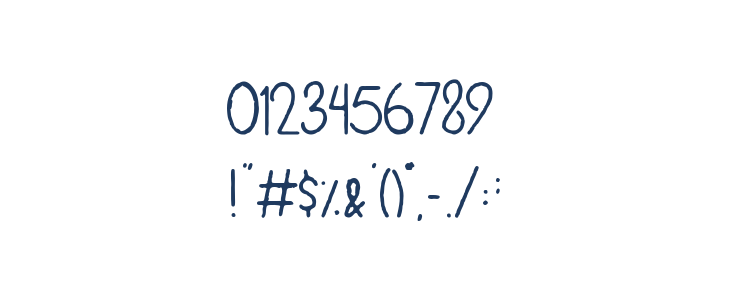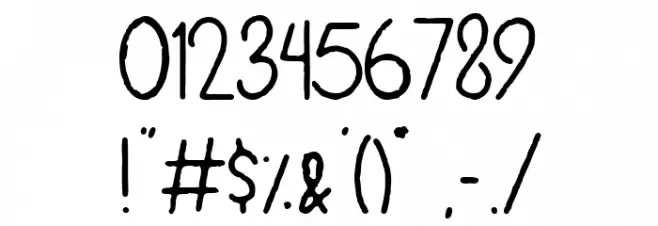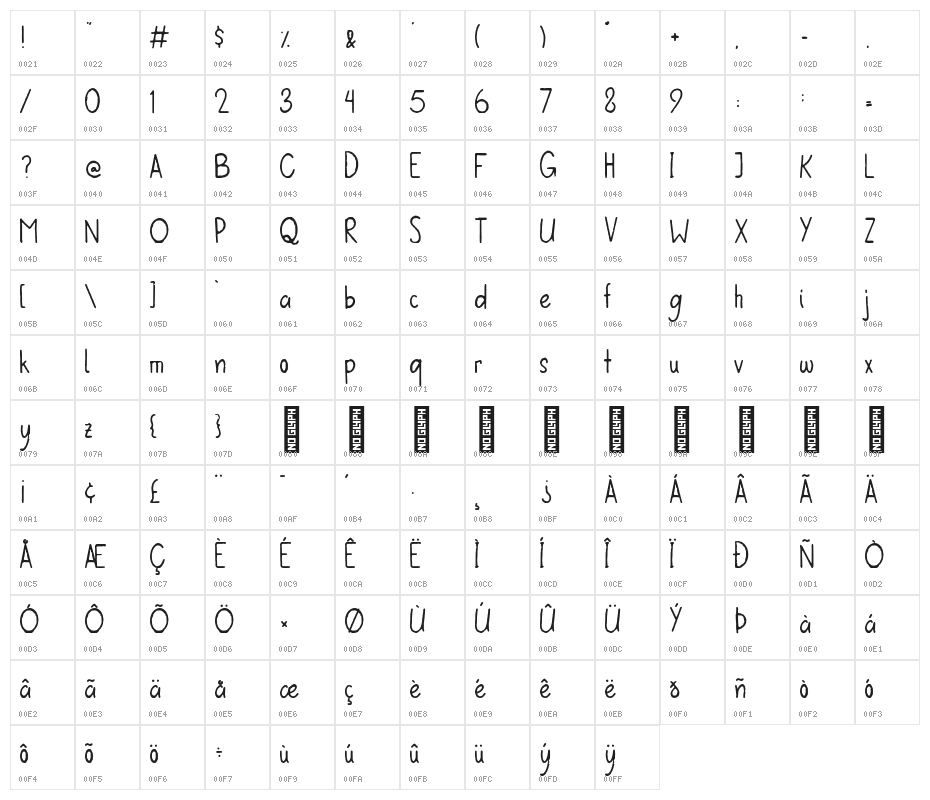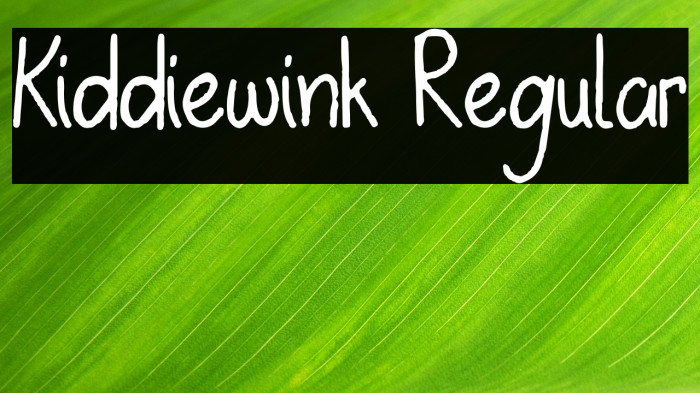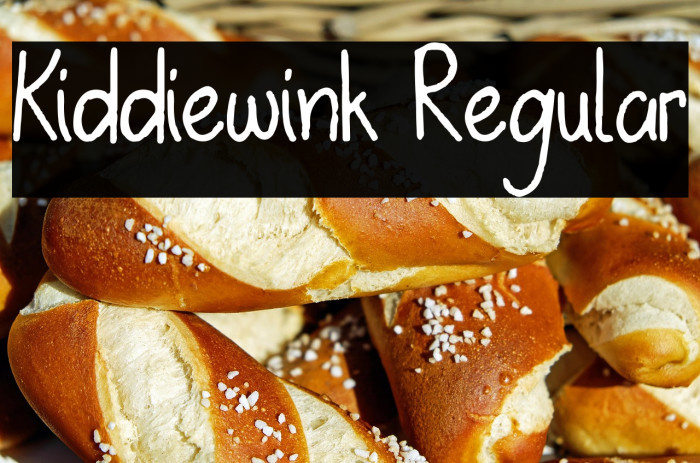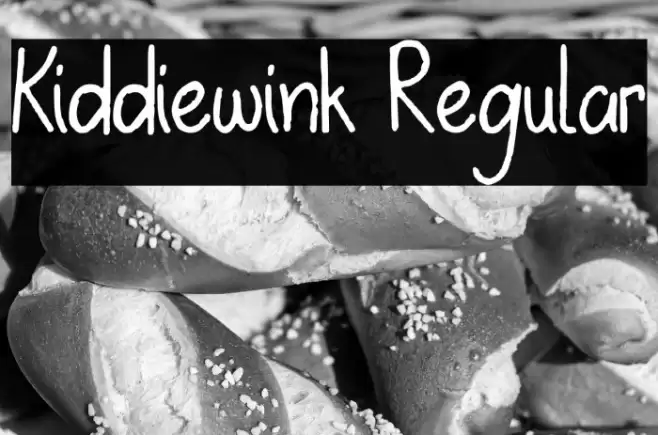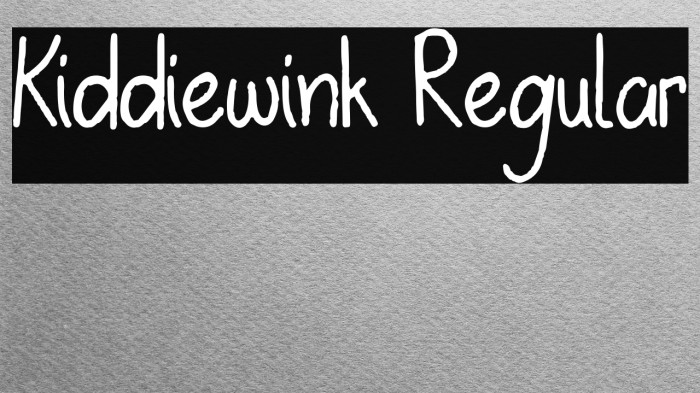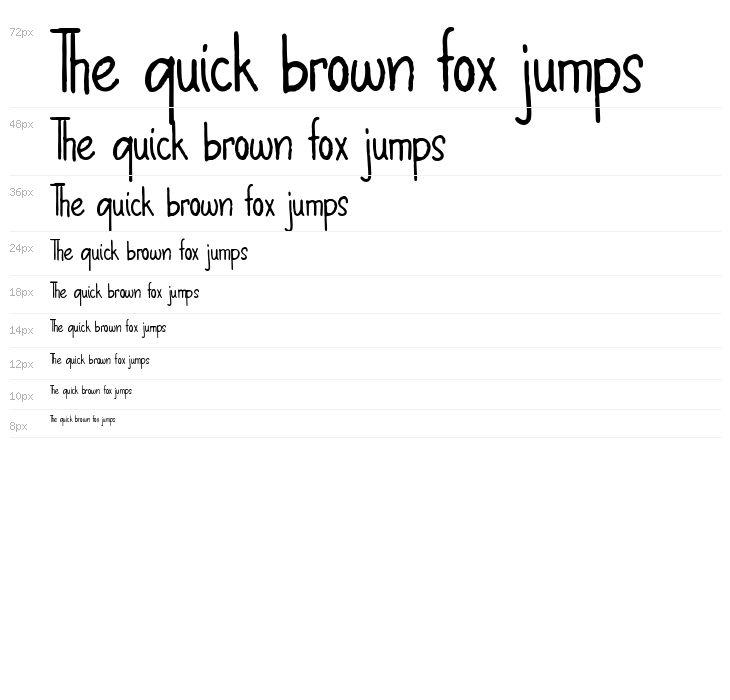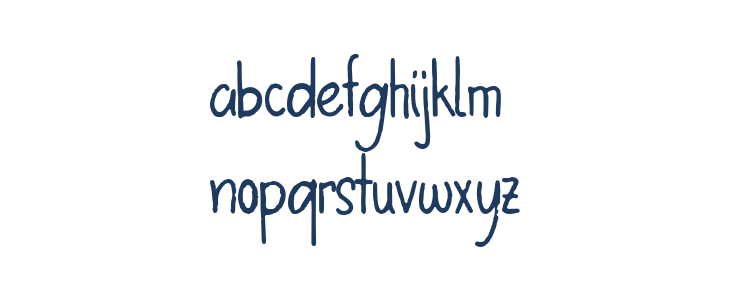
Kiddiewink Regular Font
Kiddiewink Regular Description
This playful and whimsical font features a hand-drawn style that exudes a sense of fun and creativity. The characters are slightly irregular, giving it a charming, informal appearance. The uppercase letters are tall and narrow, while the lowercase letters maintain a consistent height, adding to its quirky personality. The numbers and special characters follow the same playful design, making it suitable for projects that require a light-hearted and friendly touch. The overall look is reminiscent of children's handwriting, making it ideal for educational materials, children's books, or any project that aims to capture a youthful spirit.
| Proposed Projects | Children's books, educational materials, playful branding, greeting cards. |